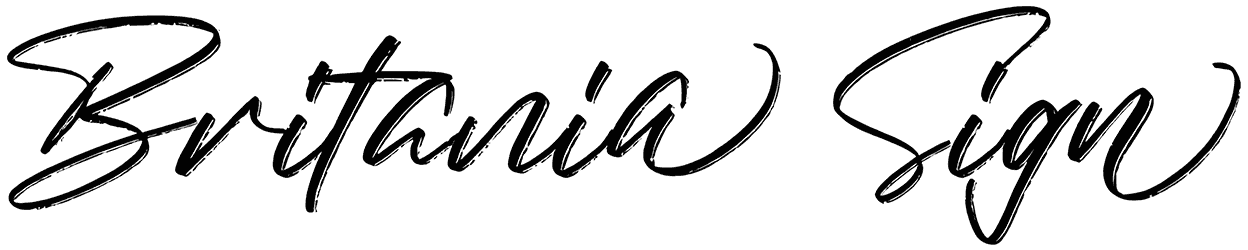
Britania Sign Font
As a simple solution, a modern and chic handwritten font like this one will be used for countless projects with different topics. You have all the characters of this cool and urban brush font. For your new design, such as a director’s business card, use the Britania Sign font and see how ravishing the final draft will be.